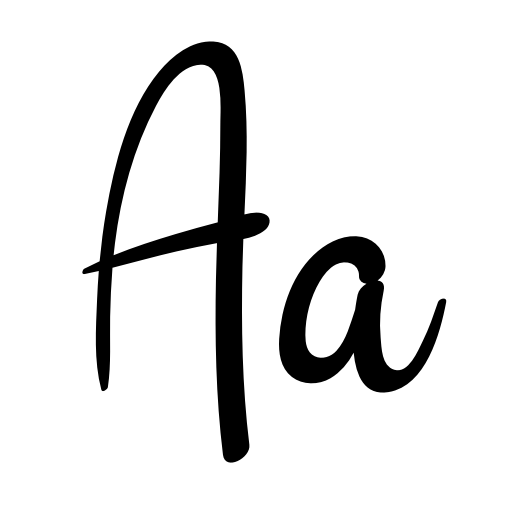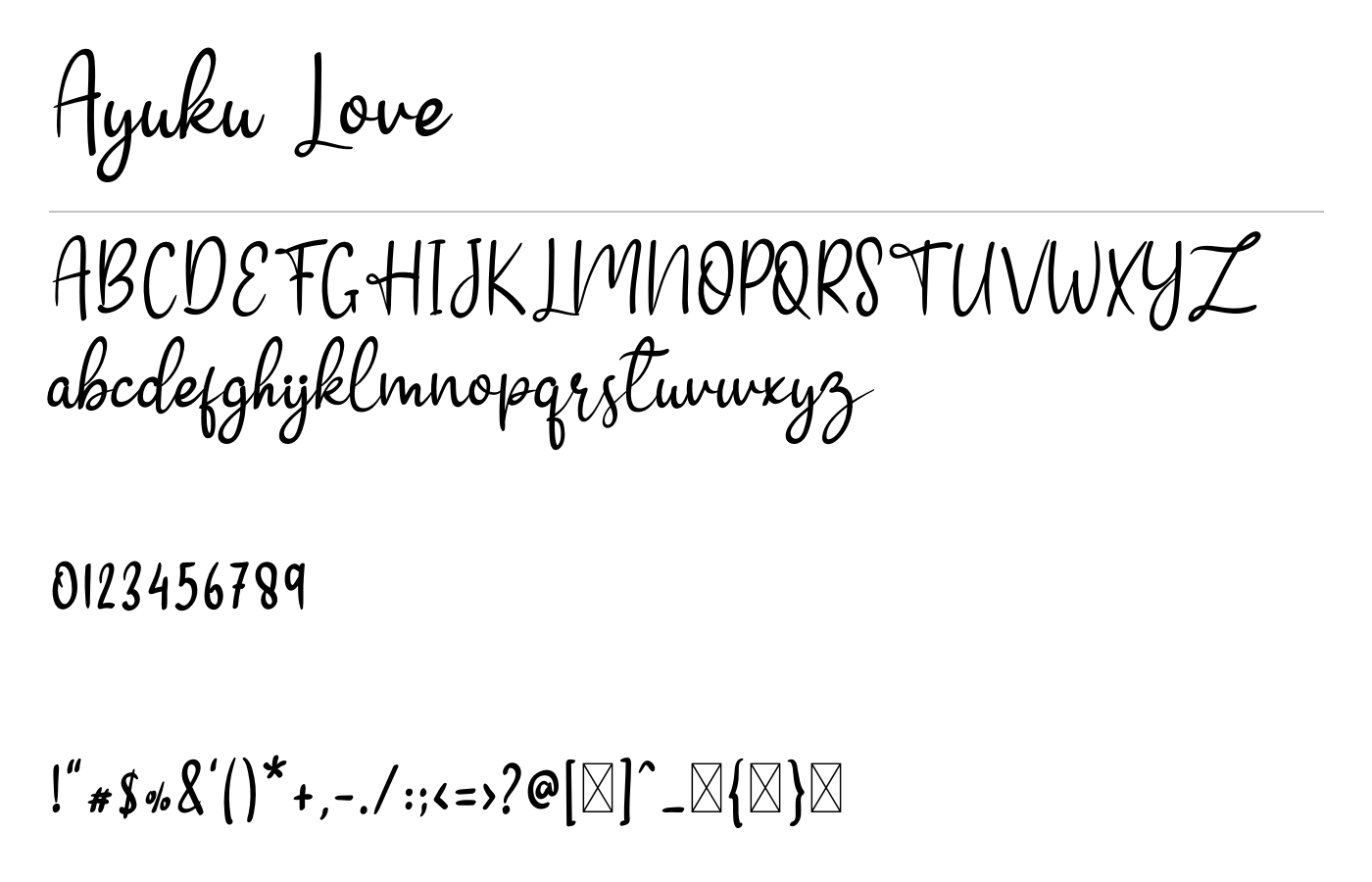
Ayuku Love is a playful and elegant handwritten script font that features smooth, flowing strokes with a casual yet refined feel. Its slightly tall, narrow letterforms and moderate contrast make it suitable for creative uses like invitations, branding, and social media where a warm, personal touch is desired. This font works best for expressive headlines or decorative text that aims to convey friendliness and charm.
Ayuku Love Font
About Ayuku Love Font